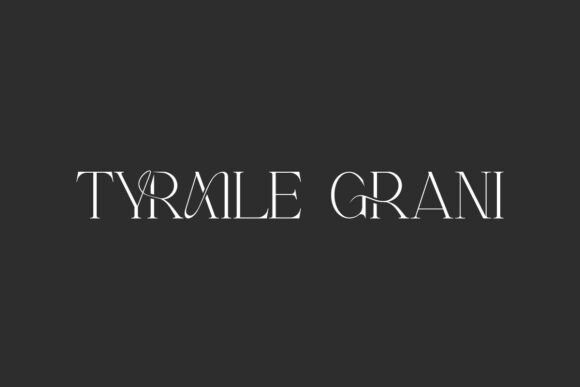
Tyraile Grani Font
Tyraile Grani Font is the font you’ve been looking for. This elegant display serif font blends the clean structure of sans serif with the refined details of serif, resulting in a typeface that feels bold yet graceful.
Tyraile Grani is an exquisite, high-fashion display serif font that captivates with its extreme contrast and unique, delicate letterforms. This elegant typeface features dramatically thin serifs and sharp, sophisticated terminals, blending classic luxury with a modern, editorial edge. The TyraileGrani font includes stunning decorative alternates and ligatures, particularly noticeable in the beautiful intertwining initial letters, allowing for truly bespoke titling.
Use the TyraileGrani display font to elevate luxury branding, high-end wedding stationery, premium product packaging, and fashion magazine layouts. This highly refined serif typeface ensures every design possesses an air of exclusive elegance and sophisticated drama.